Why Independence Day Fonts Matter for Patriotic Designs
A good Independence Day font does more than spell out โHappy 4th of July.โ It sets the mood before anyone even reads the words.
I always think of patriotic typography a bit like walking into a backyard barbecue. You notice the flags first. Then the paper plates, red cups, blue tablecloth, sparklers on the table, and maybe that smoky grill smell drifting through the yard. A font can do the same thing visually. It gives your design an instant feeling.
For 4th of July projects, the font has to work harder than a regular display font. These designs are usually busy by nature. Stars, stripes, fireworks, flags, bunting, bold slogans, and bright red-white-blue color palettes are all competing for attention.
A plain font can disappear fast in that kind of layout.
A strong patriotic font brings some of the celebration with it. It can carry a simple design almost on its own, which is why decorative color fonts are so useful for Independence Day projects.
Many of the fonts in this list use American flag patterns, stars, stripes, doodle details, pop-art styling, 3D effects, or red-white-blue fills. Theyโre the kind of fonts that fit naturally on shirts, mugs, stickers, banners, party invitations, sublimation prints, posters, ornaments, and social media graphics.
That flexibility matters. A single 4th of July campaign might need a shirt design, an Etsy thumbnail, a party flyer, a printable sign, and a matching Instagram post. The right font can pull everything together without making the whole collection feel overworked.
Best Independence Day Fonts for 4th of July Projects
1. America Font
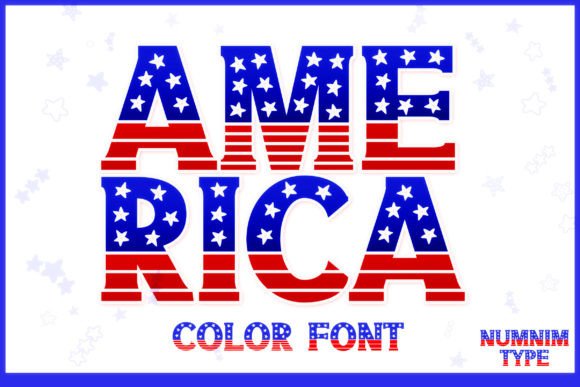
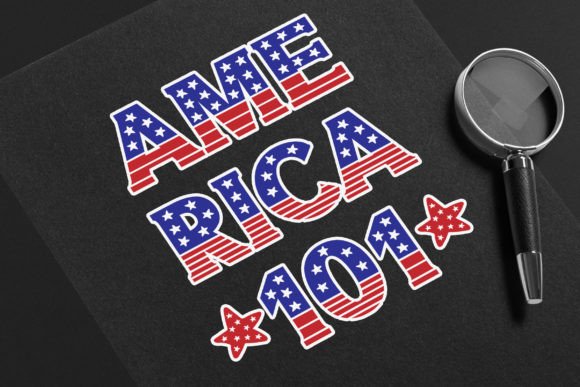
America Font has that instant summer craft-table look. It feels cheerful, patriotic, and ready for 4th of July projects without looking too stiff.
The red, white, and blue styling gives it a festive look right away, so it works well for stickers, mugs, t-shirts, ornaments, Independence Day event cards, invitations, and similar seasonal designs.
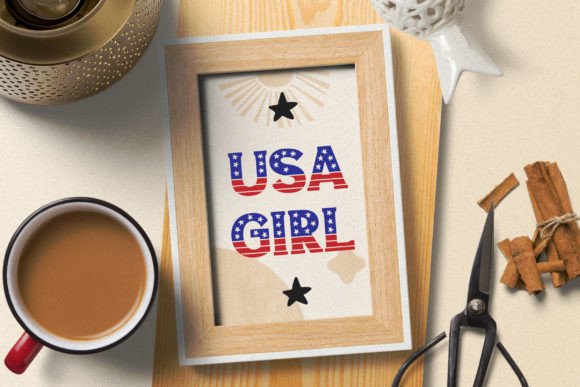
What I like about this kind of font is that it doesnโt need much help. If youโre making a โLand of the Freeโ shirt or a โParty in the USAโ tumbler wrap, the lettering already carries a lot of the theme. Add a simple firework graphic, a small star border, or a slightly distressed texture, and the design feels finished.
Itโs also a good choice for short, bold words like:
- AMERICA
- FREEDOM
- USA
- LIBERTY
- CELEBRATE
Those words give the decorative details enough room to show.
America Font is also useful for designers who want a ready-made patriotic effect without building every stripe and star manually. For Cricut users, itโs worth checking the included files before starting, especially if you plan to cut vinyl. For printables, sublimation, stickers, and digital graphics, the color version can save a lot of time.
2. Memorial Font
Memorial Font has a more traditional patriotic feeling, which makes it useful beyond just Independence Day.
Itโs inspired by the United States flag and works for USA-themed projects such as Patriot Day, 4th of July, Memorial Day, and other patriotic designs. That broader holiday range is helpful if you create seasonal products. One font can support several collections instead of sitting unused after July.
Visually, Memorial Font works well when you want something handcrafted, festive, and clearly American. Itโs a nice fit for alphabet layouts, personalized names, monogram-style graphics, printable dรฉcor, and classroom projects.
I can picture it on a family barbecue sign that says โThe Johnsonsโ 4th of July Cookout,โ or on a bulletin board spelling out โFreedomโ in big flag-inspired letters.
It has enough pattern to feel interesting, but it still keeps the letter shapes direct. That matters for physical products. A font might look charming on a large preview image, but if it falls apart on a mug mockup or small sticker, it becomes less useful.
This is a good option for designers who want a classic patriotic look with enough personality to stand on its own.
3. USA Day Font
USA Day Font feels simple, bold, and friendly. Itโs a good option when you want patriotic style without making the design too busy.
The playful red-white-blue look makes it especially useful for Independence Day cards, invitations, flyers, and quick seasonal graphics. It has that โready for the partyโ feeling without needing a lot of extra decoration around it.
This font is especially useful for short phrases. Words like โUSA,โ โJuly,โ โFreedom,โ โCelebrate,โ and โFireworksโ give the flag-style details enough breathing room.
With patriotic color fonts, spacing makes a big difference. If you crowd the letters or surround them with too many extra elements, the design can start to feel messy. USA Day Font already brings the holiday mood, so Iโd pair it with clean backgrounds, simple stars, or one supporting graphic rather than a full pile of fireworks, flags, ribbons, and textures.